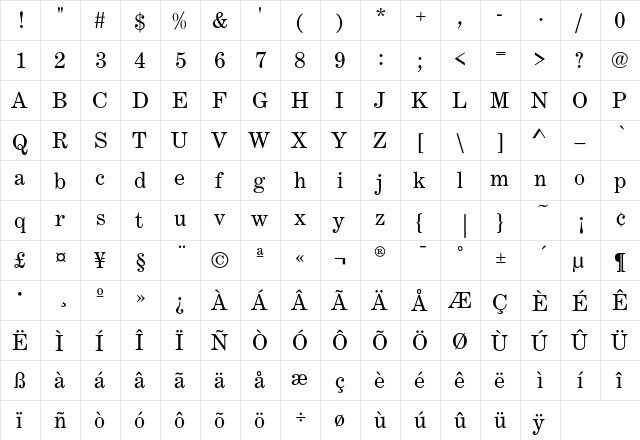
CenturyExpEF Regular
Design Context for CenturyExpEF Typeface
CenturyExpEF takes a measured approach to typography — its balanced proportions and neutral character make it a reliable workhorse for both digital and print work.
Pro Tip: Pair CenturyExpEF with a font of contrasting weight or personality to build a more expressive typographic hierarchy.